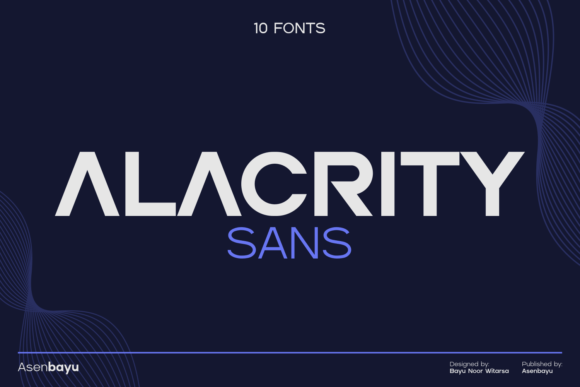
Introducing Alacrity Sans Font: The Gateway to Modern Sophistication!
In a world where first impressions matter, your resume is your passport to success. Let Alacrity Sans Font be your trusted companion, guiding you towards a future of professional excellence. This versatile sans serif font family, meticulously crafted by asenbayu, exudes sophistication and modernity through its sharp geometric shapes.
With Alacrity Sans Font, you're not just downloading a font; you're embracing a whole new realm of design possibilities. Its clean lines and balanced proportions bring a touch of elegance and professionalism to your projects, whether you're designing a logo, business card, website, or any other creative endeavor.
Unleash your creativity and let Alacrity Sans Font transform your designs into captivating masterpieces. Its versatility allows you to effortlessly switch between different styles, from sleek and minimalist to bold and dynamic. The possibilities are endless, and the results are always stunning.
Step into the future with Alacrity Sans Font and witness the difference it makes. Its innovative technology ensures crisp, clear rendering on any device, making your designs shine across platforms. Experience the power of modern typography and elevate your projects to new heights of sophistication.
Don't settle for ordinary fonts. Choose Alacrity Sans Font, the ultimate choice for those who value style, professionalism, and innovation. Embark on a design journey like never before and let your creativity soar. The future of design awaits, and Alacrity Sans Font is your key to unlocking it!